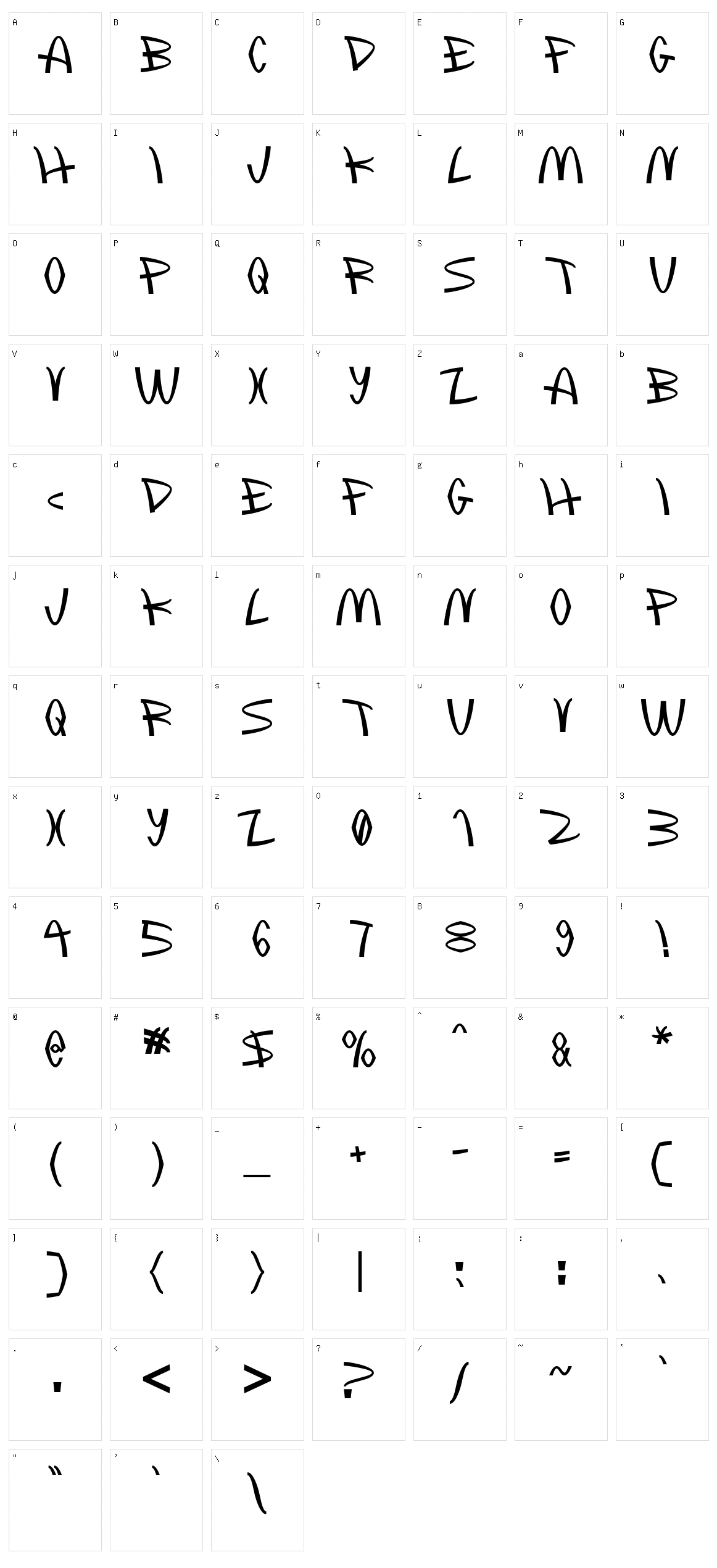
McLawsuit
The font based on the ÒGolden ArchesÓ logo for McDonaldÕs.
Rationale:
This is a font based entirely on the McDonald's "Golden arches." You know, the "M." I just took the original logo and sliced it up and pasted it together into an entire alphabet. It includes A-Z, 0-9, and all general punctuation, and keyboard characters.
The reason this font is called McLawsuit is that Micky-D's is valiant in protecting the intellectual property of their products, and it mostly comes across as pure dominance. But maybe they'll dig this font instead of wanting to slap me with some Cease and Desist order. Have you had your break today?